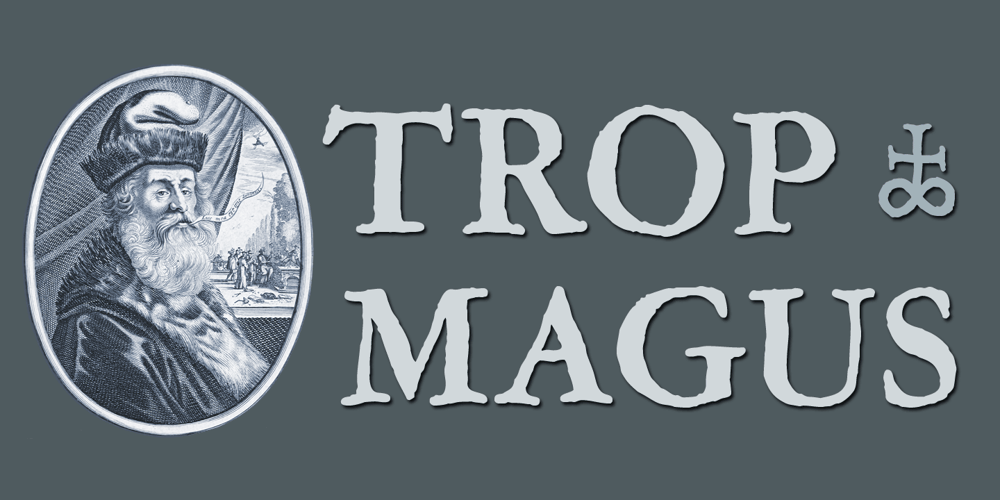
Trop Magus Font Family was designed by Jean Jannon, Seymour Caprice, Ramon Llull and published by Kickingbird. Trop Magus contains 1 styles and family package options. Trop Magus is a rugged typeface following in the tradition of Ramon Llull and Jean Jannon. Llull’s illuminated manuscripts from the Middle Ages inspired many later Alchemical texts in the Renaissance. And it was during this era, in 1615, that Jannon cut the matrices for Typi Academiae. The Trop Magus typeface includes: – Sixty-five Alchemical and Astrological symbols – Multi-language glyph set – Old Style figures – Four sets of alternate glyphs – Pseudo-Random OpenType features